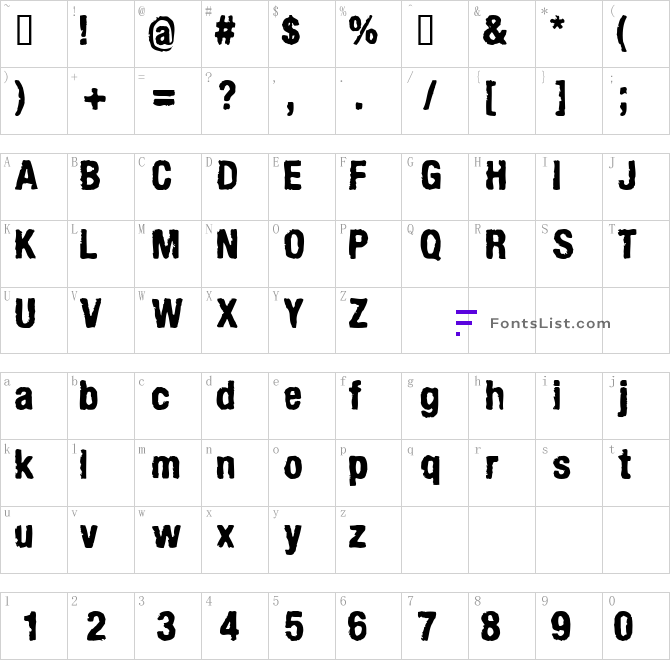
- Font Name:ArmyChalk
ArmyChalk.ttf is a very beautiful artistic font, ArmyChalk.ttf is widely used in the design and printing of various books and pictures,ArmyChalk.ttf has a strong visual impact,ArmyChalk.ttf is a commonly used font in newspapers, magazines and books, and is used in posters, e-commerce Poster design, store design, logo design, font design and other fields.ArmyChalk.